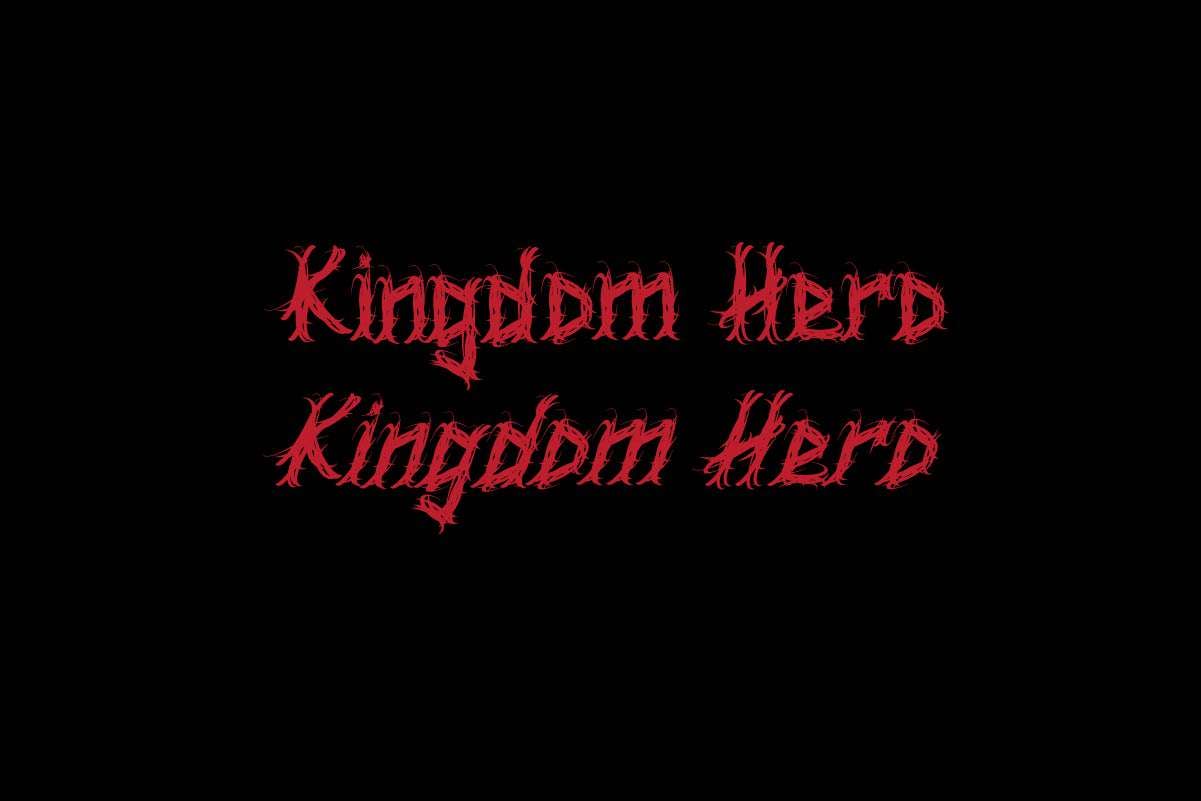
Kingdom Hero Font
Kingdom Hero Font is a display sans serif font with dark horror style, designed by Rais Project. The font will be great for Games, Movie, Events, Sports etc
Kingdom Hero Font is handcrafted for any your special projects including : headlines, promotion, events, brandings, advertising, magazine, signage, invitation, stationery, social media posts, label, or and any projects that need unique special style. The industries for this font is Games, Movie, Music, Sport, Events, etc. Kingdom Hero Font includes full set of gorgeous uppercase and lowercase letters ,numerals and Multi languages characters.